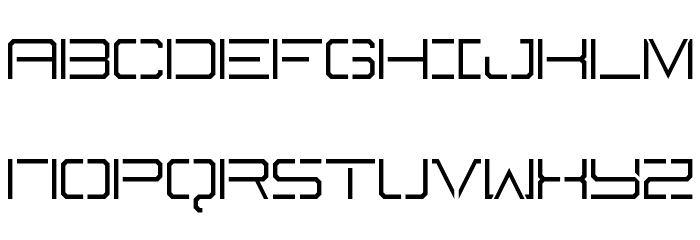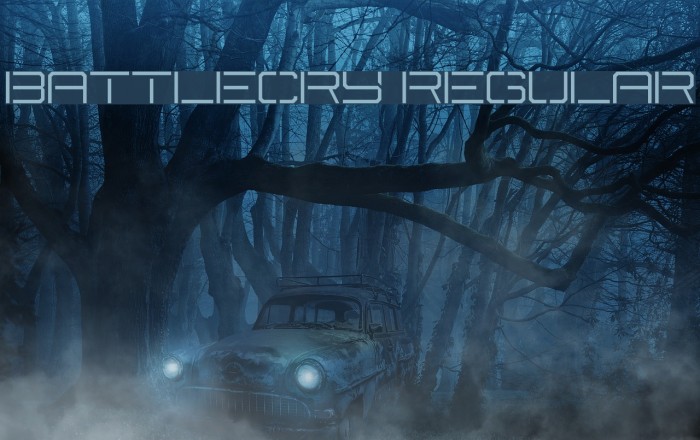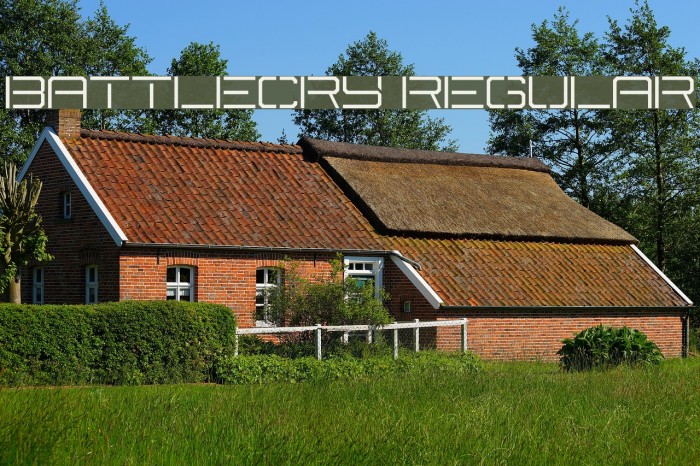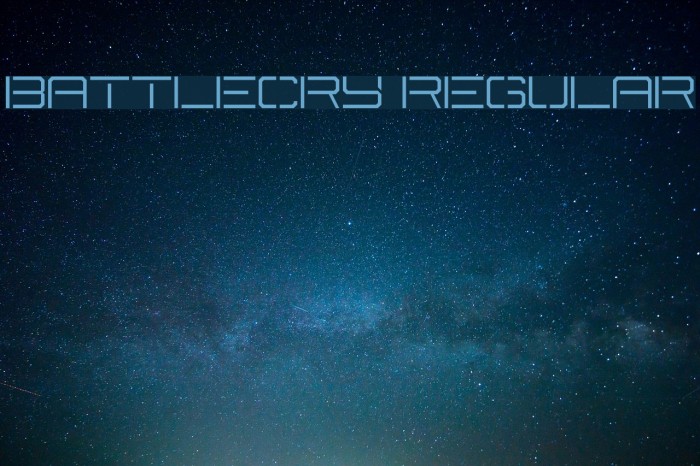
Battlecry Regular Font
This font features a futuristic and geometric design, characterized by its angular and precise lines. The uppercase letters are uniform in height, with a consistent stroke width that gives a mechanical and structured appearance. The absence of curves and the presence of sharp angles create a modern and technical aesthetic. The font is monospaced, ensuring equal spacing between each character, which enhances its orderly and systematic look. This style is reminiscent of digital or sci-fi themes, making it suitable for projects that require a contemporary and innovative touch.
A futuristic, geometric font with angular lines and a monospaced design.
- Proposed Projects: Ideal for technology branding, sci-fi movie posters, video game interfaces, and modern digital artwork.
- Use Case: Logos, Headlines, Digital interfaces